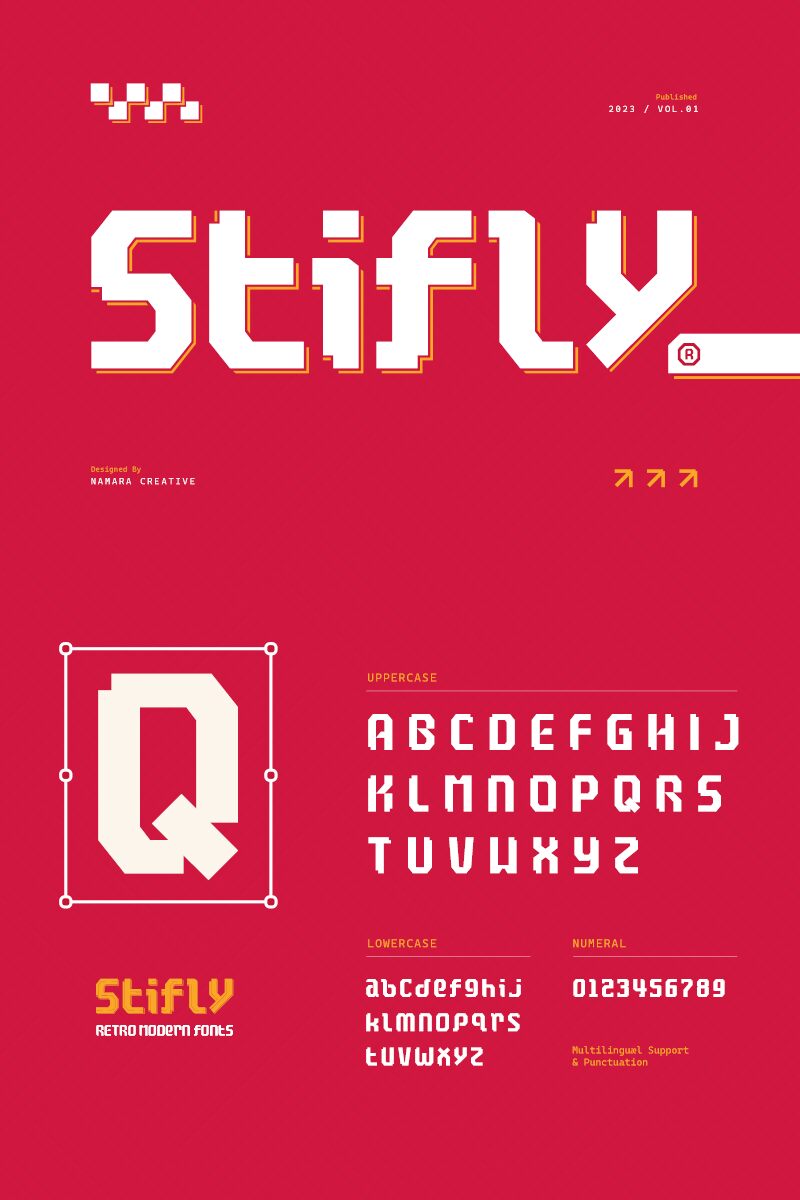
Stifly
Stifly, a bold pixelated sans font created by Namara Creative, offers a stylish selection of uppercase and lowercase letters inspired by techno fonts and block designs with a futuristic touch.